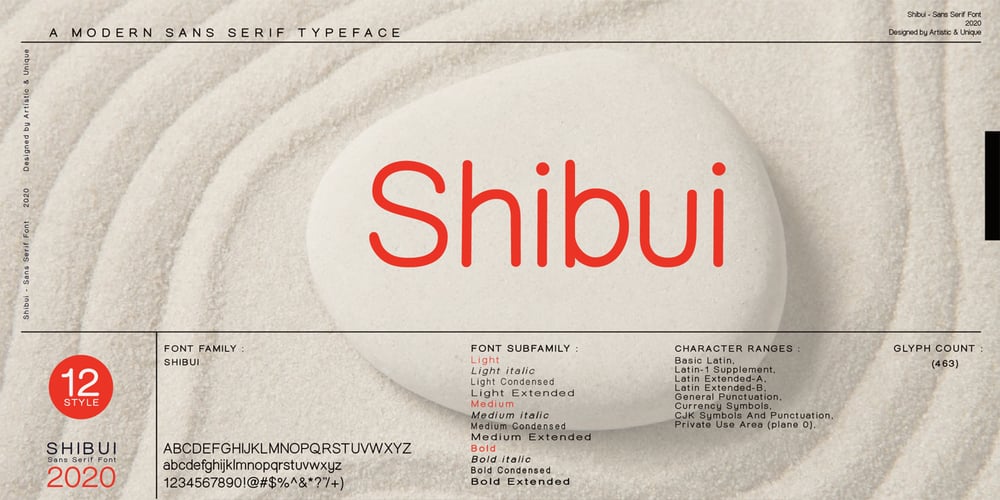
Shibui
Shibui Font Family was designed by Osman Taner Kucukgenc and published by Artisticandunique. Shibui contains 12 styles and family package options. Shibui is a Japanese word that expresses a certain aesthetic of simple, subtle and inconspicuous beauty.Shibui – Sans serif font, character structure is simple alphabet style. It has an elegant appearance with rounded folds.It offers the best solutions in your digital projects with this font which is highly readable in the smallest dimensions.With its modern minimalist stance, this font can meet your needs in all modern or classic creative projects.Absolutely perfect for titles, websites, magazines, books, invitations, logos, packaging design, branding and more!Character Ranges: Basic Latin, Latin-1 Supplement, Latin Extended-A, Latin Extended-B, General Punctuation, Currency Symbols, CJK Symbols And Punctuation, Private Use Area (plane 0), Glyph Count:463With this font you can create your unique designs. If you have a question, please contact me.Have a good time.